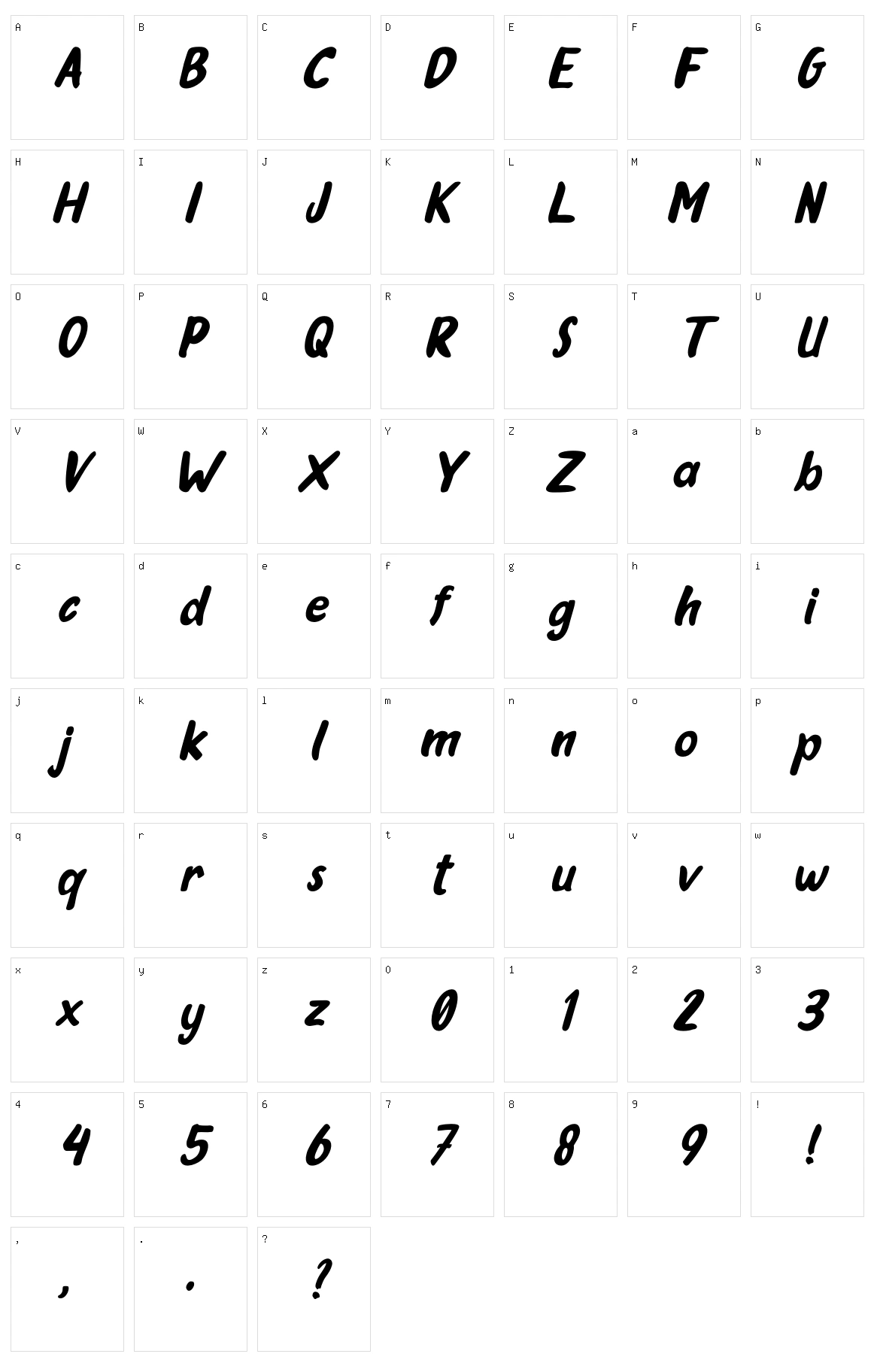
The free font Oleander Cakes is carefully designed by Marchtwentype, showcasing a thoughtful balance of creativity and usability and falls under the Cartoon font style. When you download the ZIP file, it contains only 151.04 KB of font files, making it lightweight and quick to download. Please review the license details below to understand permitted usage and distribution rights. If license information is not available, we recommend using this font for personal projects only or contacting the author directly for commercial usage permissions.